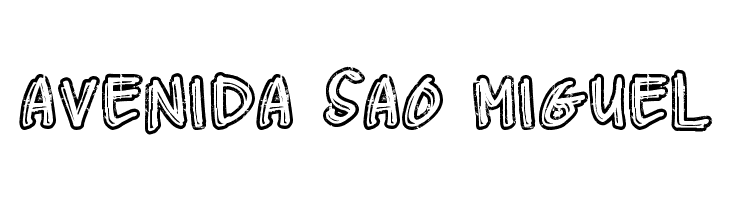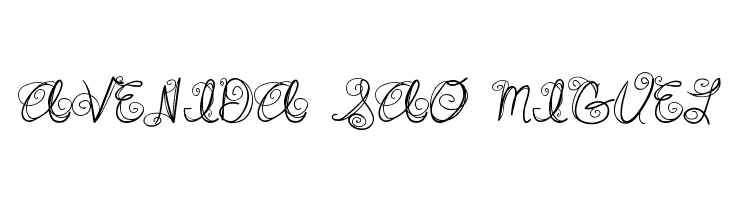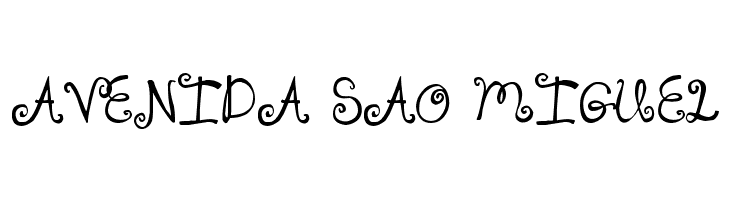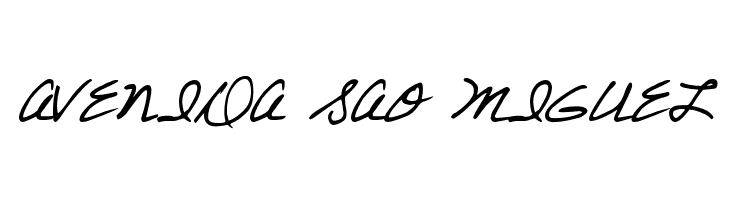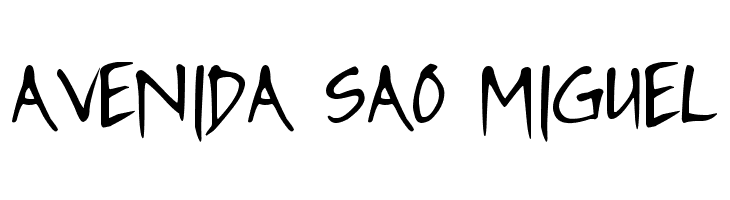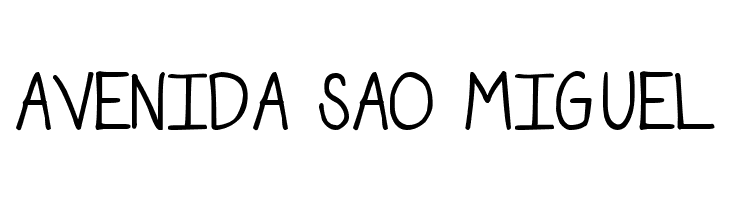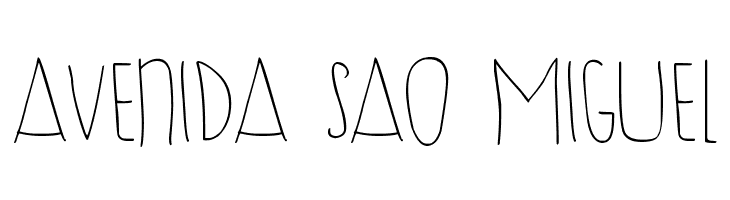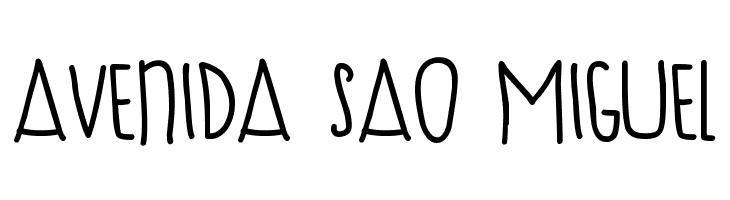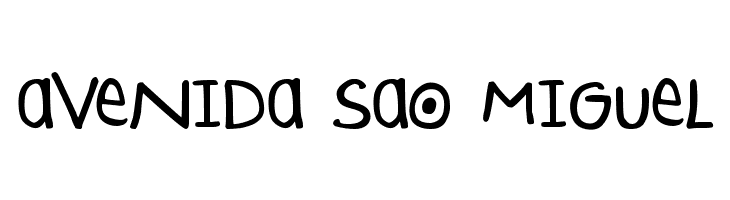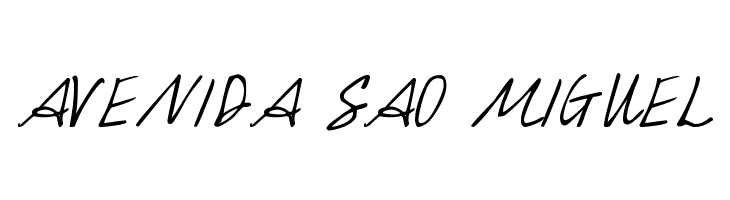
A playful, cursive script font with a natural, handwritten style.
A playful, handwritten font with a whimsical and friendly style.
A playful, casual handwritten font with smooth curves and rounded edges.
A playful, handwritten font with tall, narrow letters and a casual appearance.
A bold, handwritten font with a playful and whimsical style.
A playful and casual handwritten font with a friendly vibe.
A playful, casual handwritten font with fluid strokes and a dynamic style.
A playful, whimsical handwritten font with uneven strokes and a casual style.
A playful, casual handwritten font with a friendly vibe.
A playful, hand-drawn font with a sketch-like, whimsical style.
A bold, playful handwritten font with dynamic and irregular strokes.
A playful handwritten font with quirky, uneven strokes and a casual style.
A bold, outlined font with a playful and modern style.
A bold, modern sans-serif font with clean lines and high legibility.
A bold, impactful font with thick strokes and a strong presence.
A whimsical, curly font with playful loops and flourishes.
A bold, star-filled decorative font with a playful and whimsical style.
A playful handwritten font with rounded, smooth letterforms.
A playful, bold, and rounded hand-drawn font with a friendly vibe.
A playful, handwritten font with a lively bounce and smooth, rounded characters.
A playful, hand-drawn font with tall, narrow letters and a whimsical style.
A playful, handwritten font with bold, rounded strokes and a lively, informal style.
A decorative script font with swirling, whimsical embellishments.
A bold, playful font with characters enclosed in tag-like shapes.
A playful, outlined font with tall, narrow characters and rounded edges.
A playful handwritten font with a casual and friendly style.
A playful, casual handwritten font with a natural, creative flair.
A playful, handwritten font with a chalkboard style.
A playful, bold, and hollow font with whimsical, outlined characters.
A playful, hand-drawn font with bold, irregular strokes.
A distressed, vintage-style font with a rugged, worn appearance.